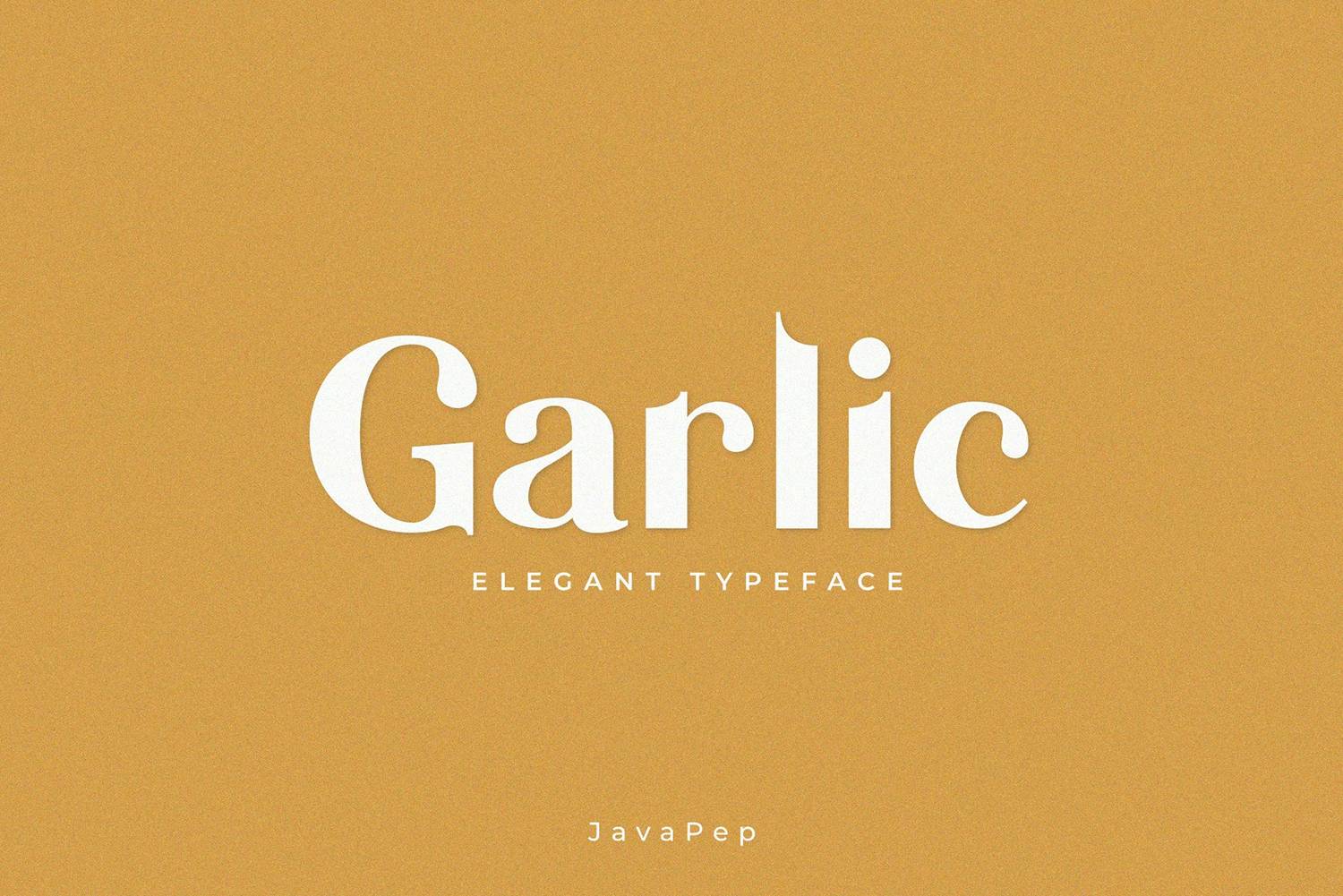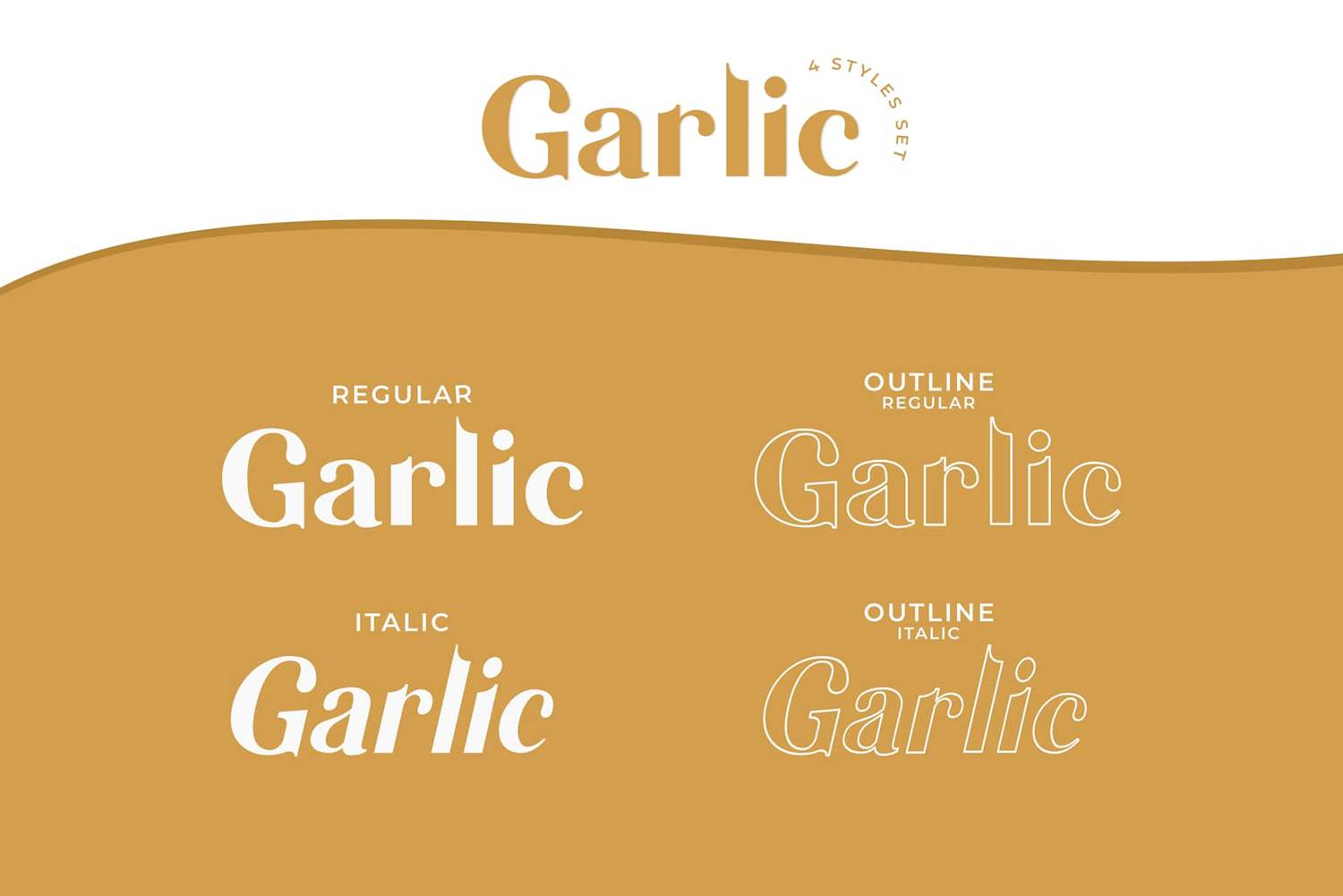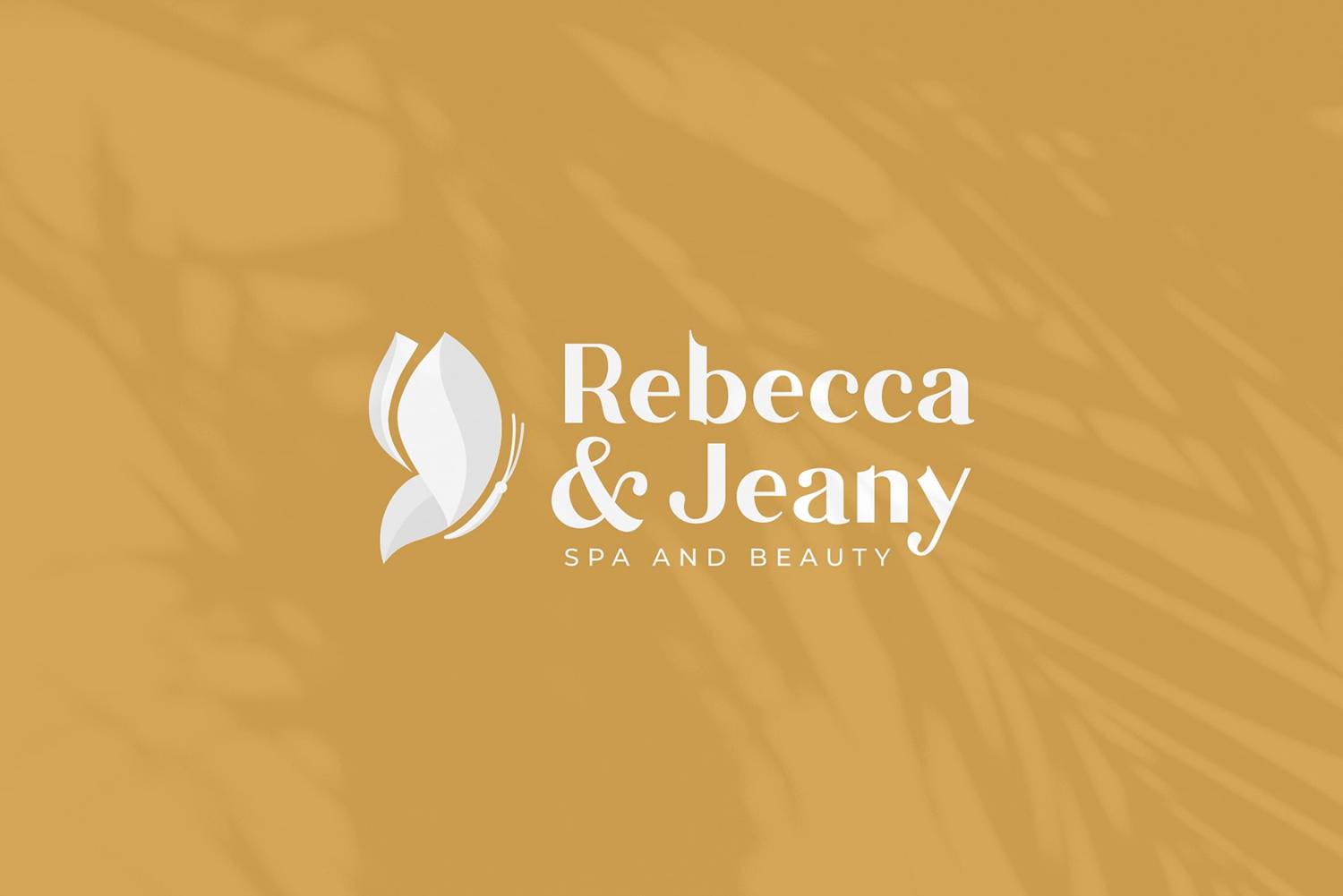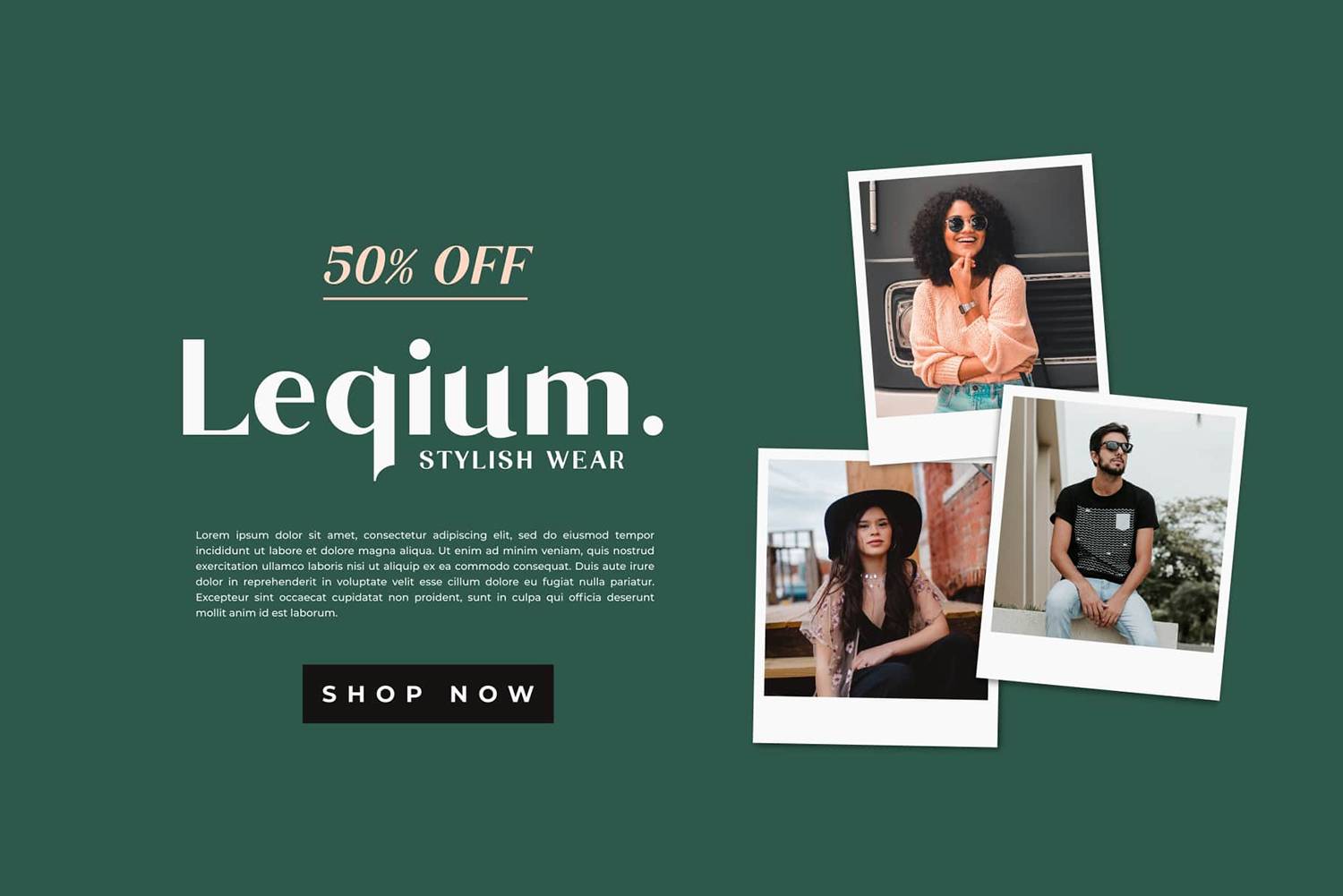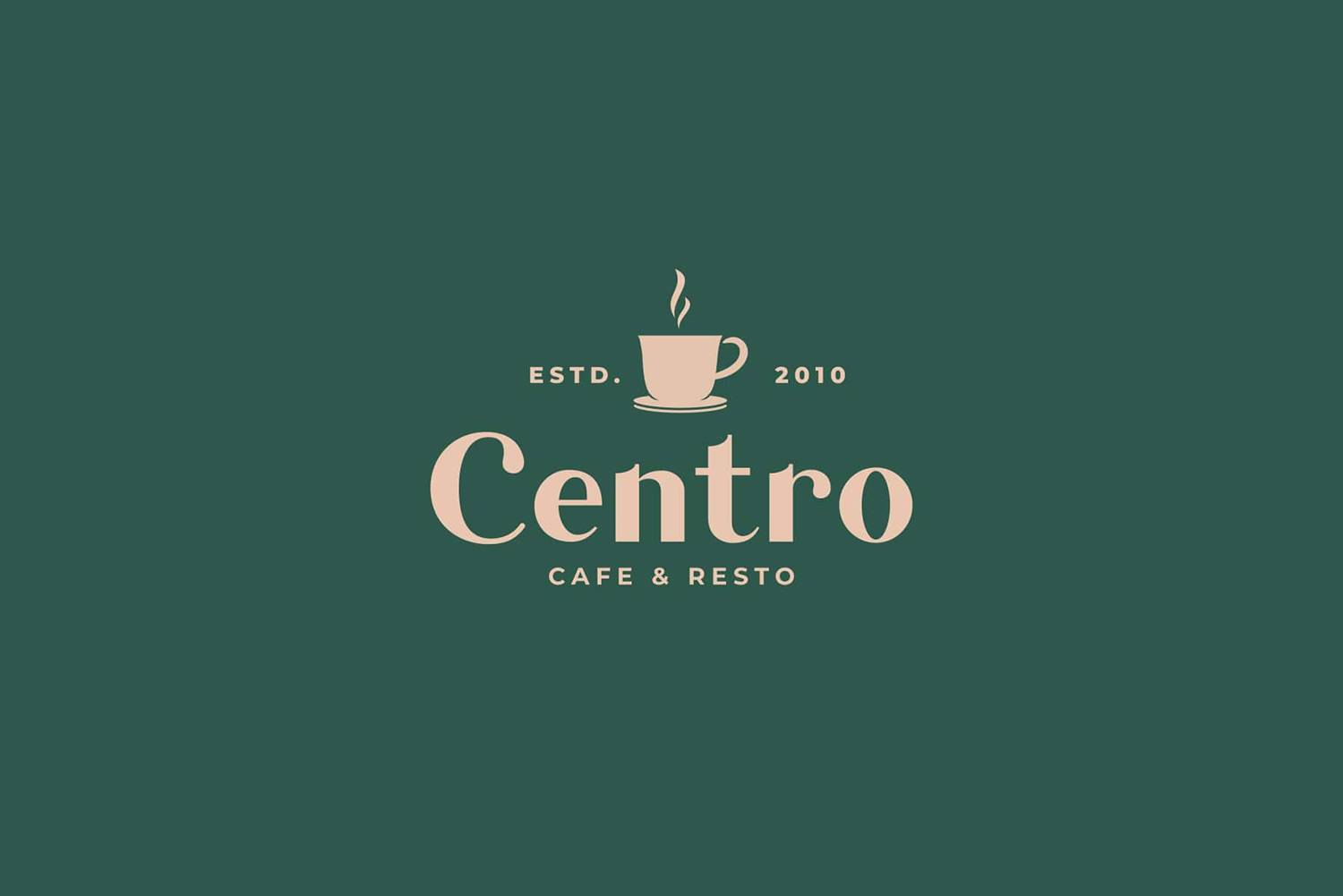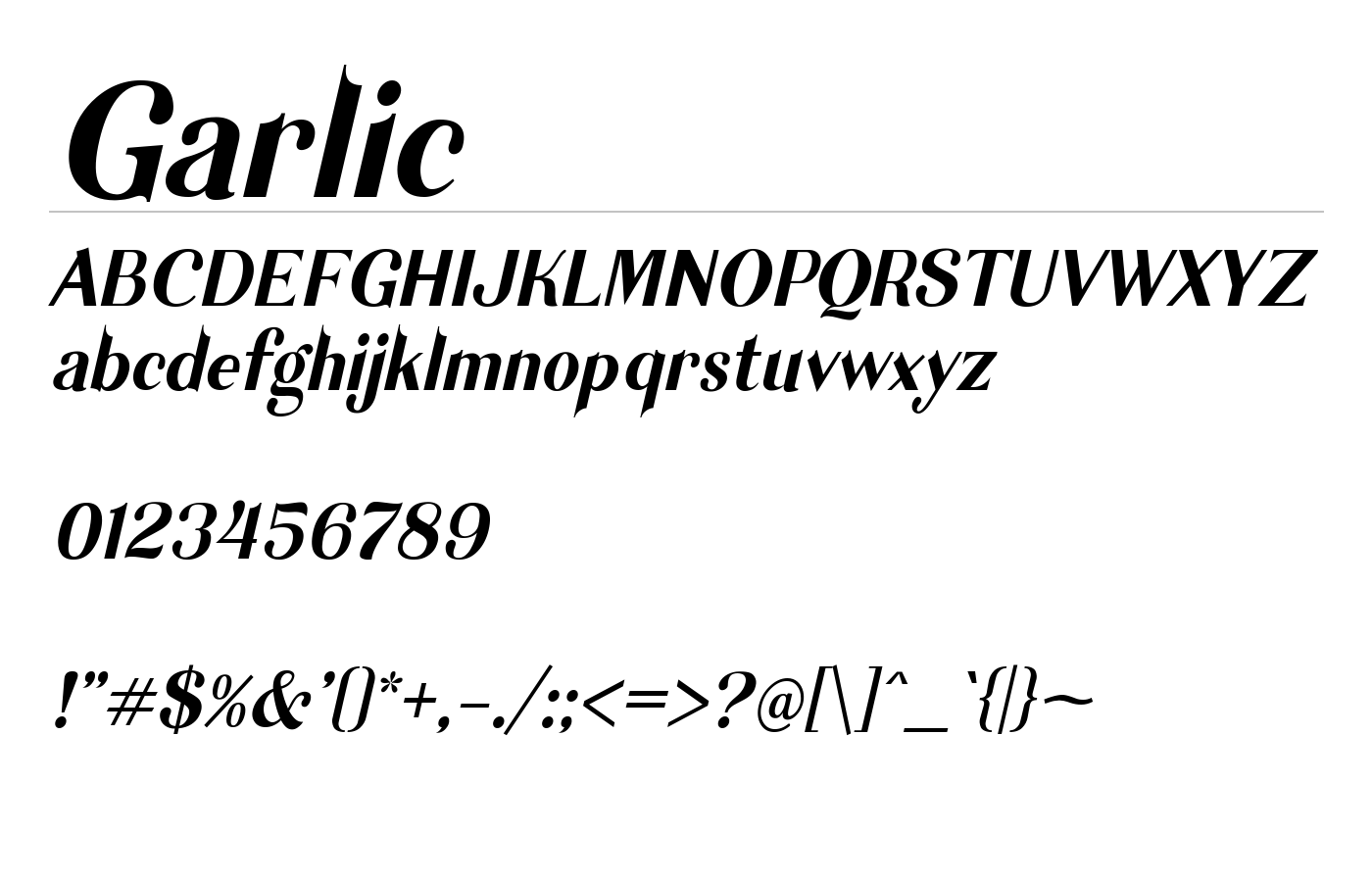
Garlic Font is a stylish serif typeface with a distinct italic slant that exudes elegance and sophistication. Its sharp, high-contrast strokes and slightly condensed letterforms make it ideal for upscale editorial use, fashion branding, and refined headlines where a modern yet classic feel is desired. This font’s graceful character shapes and dynamic rhythm lend a polished, professional look perfect for luxury and high-end design projects.
Garlic Font
About Garlic Font